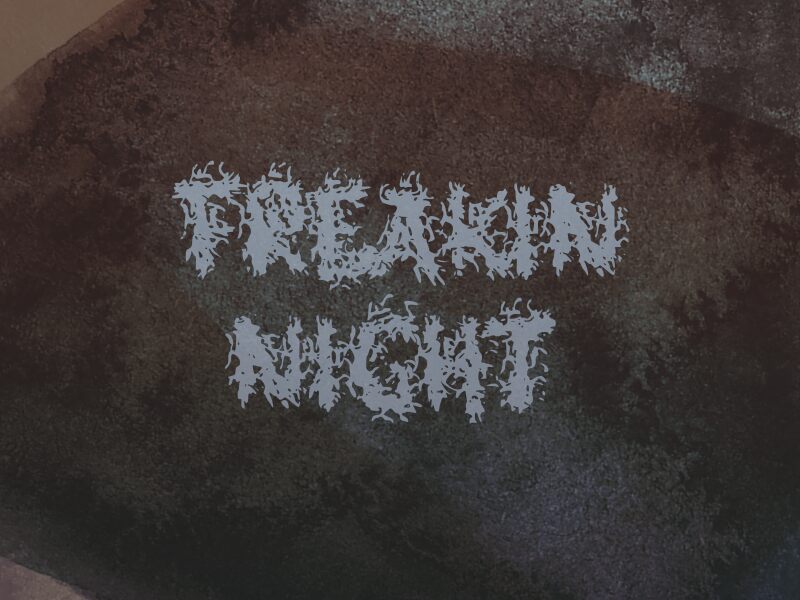
Freakin Night
Freakin Night captivates with its bold, unsettling aesthetic, perfect for evoking a sense of intrigue and fear. This display font embodies an eerie charm through its jagged, elongated characters that seem to emerge from the shadows. The striking visual appeal is heightened by a unique blend of chaotic elements, making it an eye-catching choice for any design seeking to make a dramatic statement.
Ideal for horror-themed projects, thrilling events, or even edgy merchandise, Freakin Night offers versatility in its application. Whether gracing movie posters or haunting album covers, this font ensures that any message resonates with an unforgettable intensity and flair. Embrace the spine-chilling essence of Freakin Night to elevate your creative endeavors into realms of captivating darkness.